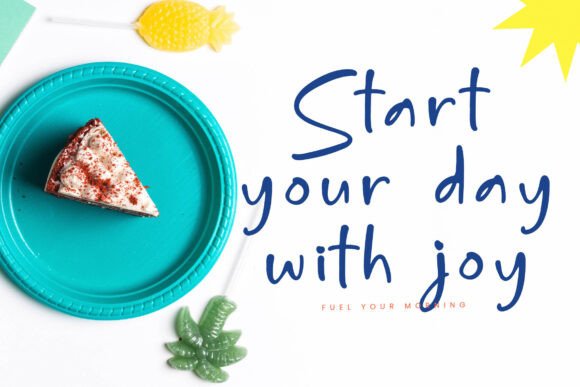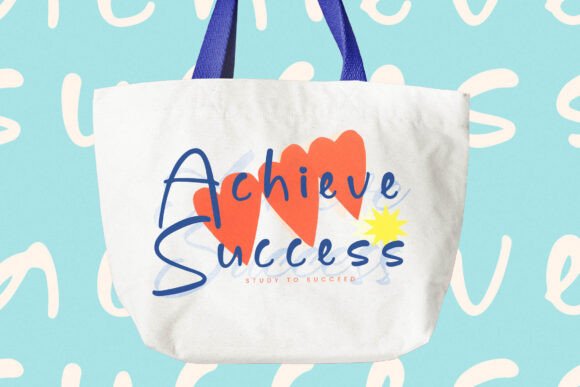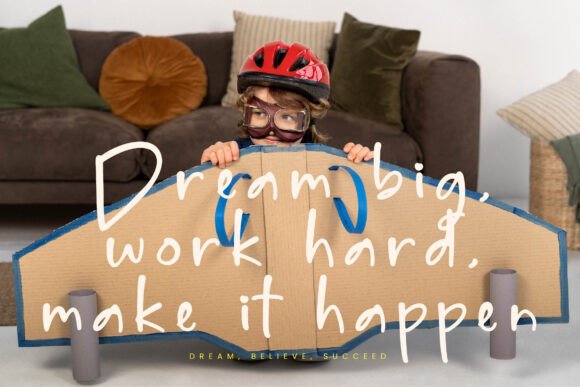
Introduction to Footsteps Jimie Font
Footsteps Jimie – Modern Script Font, from Integritype Studio, perfect for any project like: logos, branding projects, homewares designs, product packaging, mugs, quotes, posters, shopping bags, t-shirts, covers books, business cards, invitation cards, greeting cards, labels, photography, watermarks, special events and all your other luxury projects that require a premium taste.
Key Features of Footsteps Jimie Font
Why Choose Footsteps Jimie Font?
Footsteps Jimie Font offers exceptional quality and versatility, making it a valuable addition to your design toolkit. Whether you’re creating for personal projects or commercial use, Footsteps Jimie Font delivers professional results.